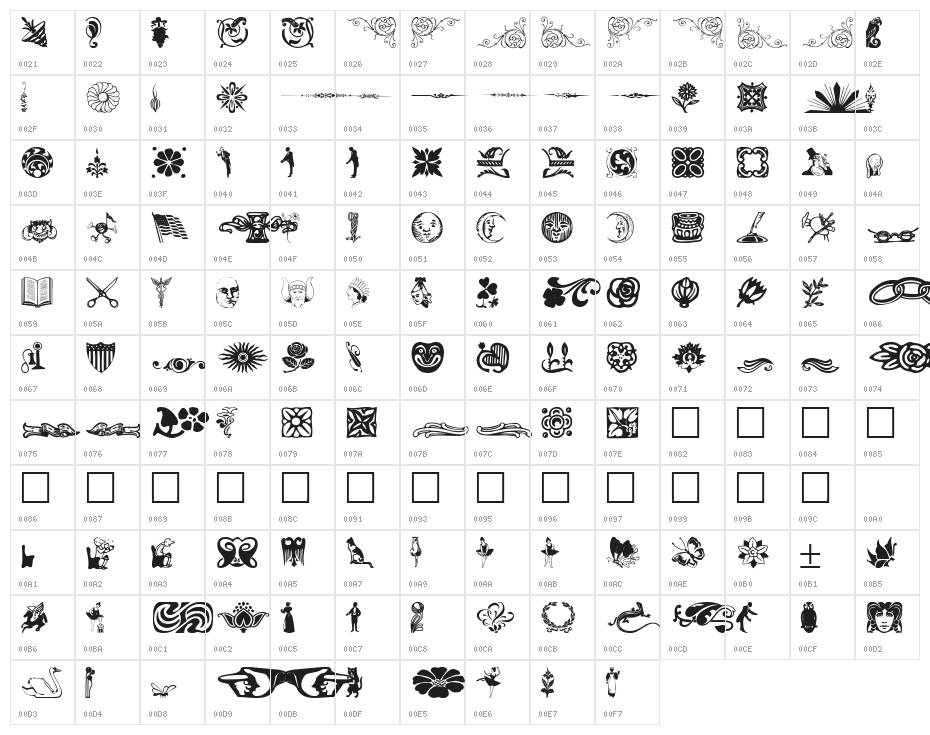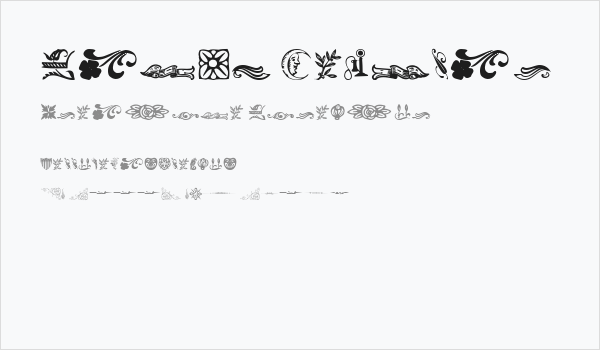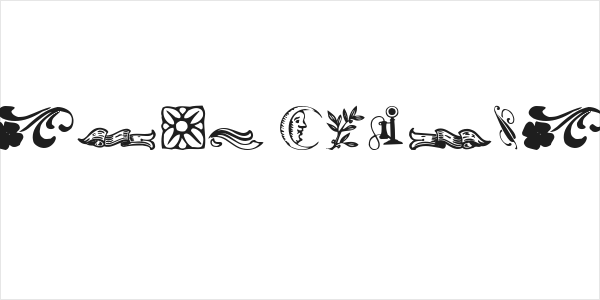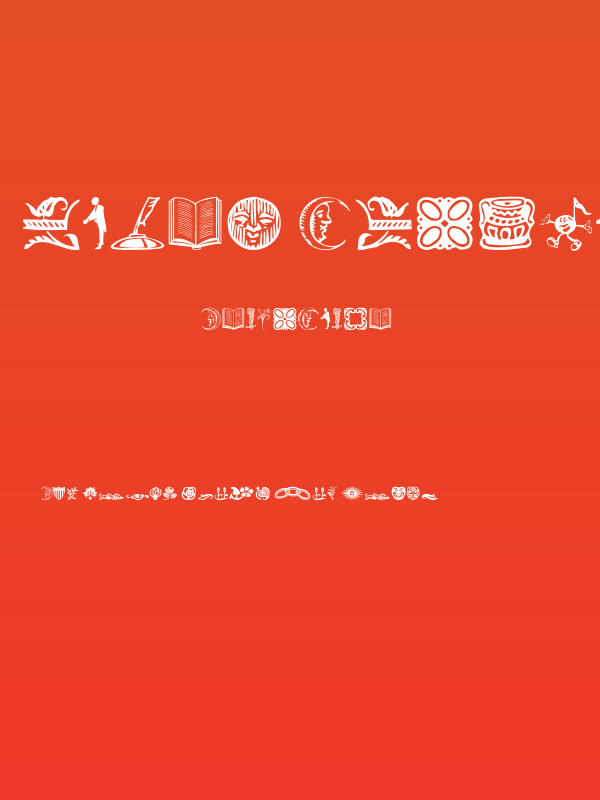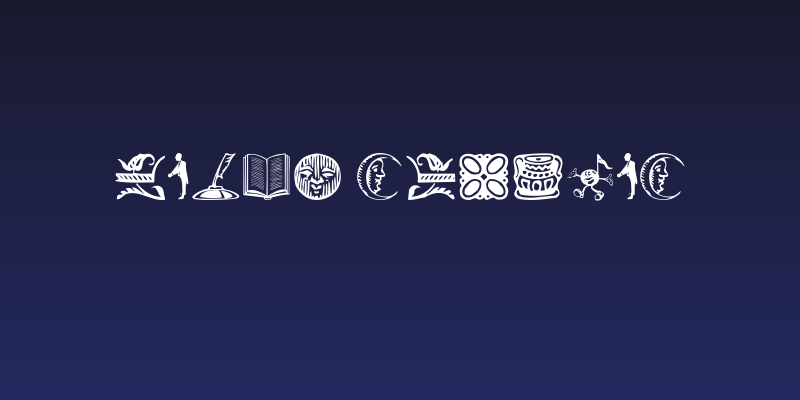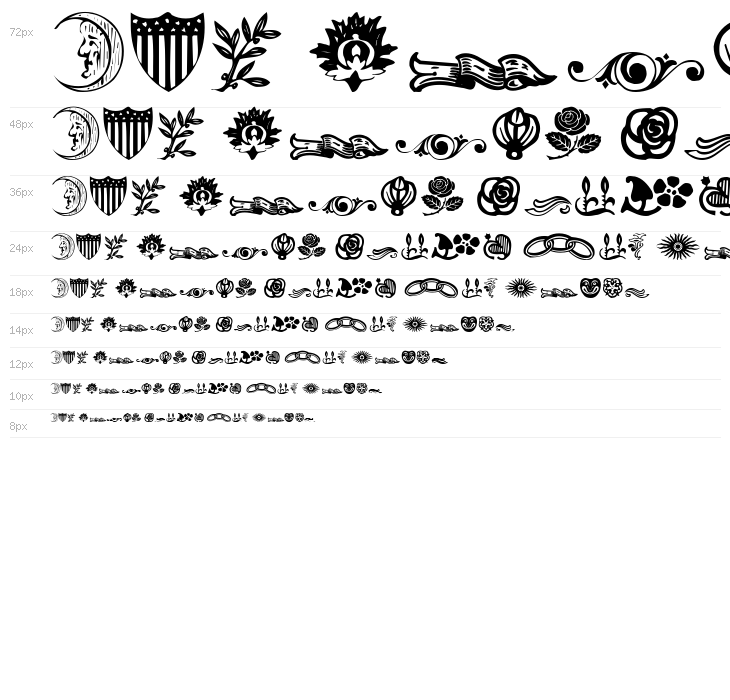
Davys Regular Font
Davys Regular Description
A decorative dingbat and ornament set featuring a variety of intricate illustrations, including floral motifs, masks, borders, flourishes, and whimsical icons. The glyphs are highly detailed, with bold outlines and a vintage, engraved appearance.
| Overall Style | Vintage, Decorative |
| Use Case | Borders, embellishments, decorative accents, invitations, certificates. |
| Proposed Projects | Wedding invitations, certificates, vintage posters, book covers, decorative borders, scrapbooking, branding for artisanal products. |